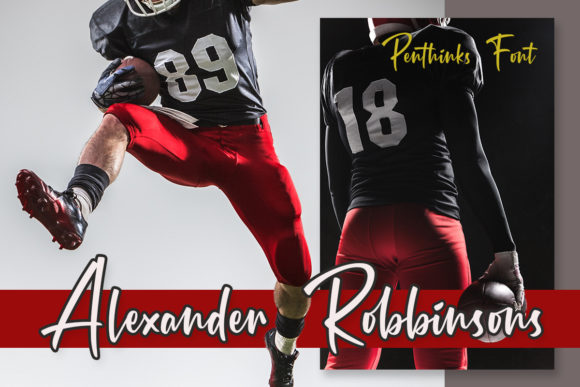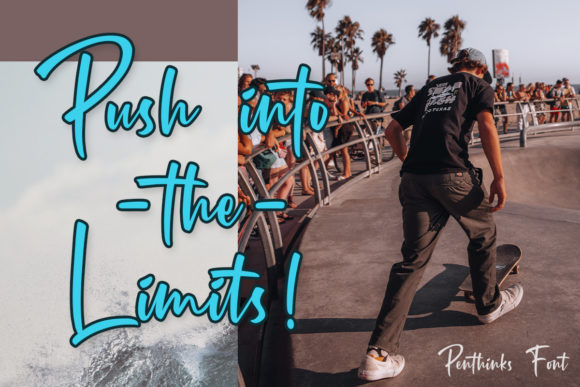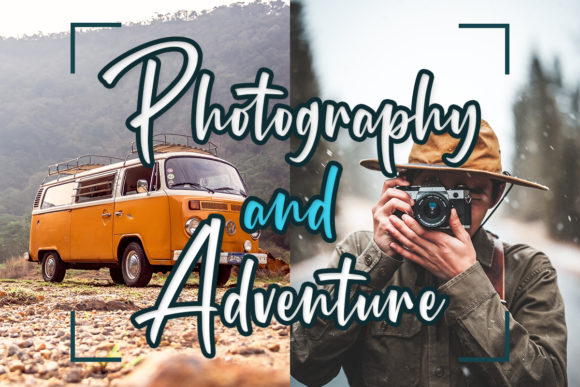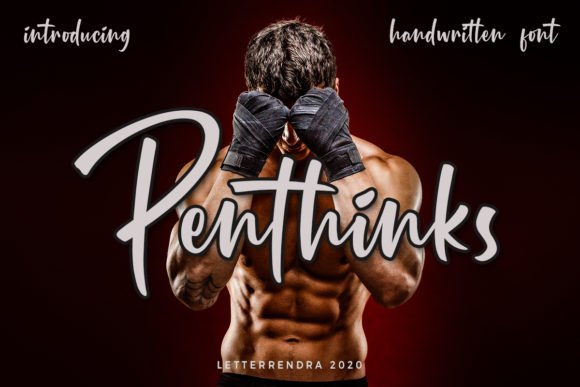
Introduction to Penthinks Font
Penthinks is a unique and interesting handwritten font.
A little bit quirky, this font is a great choice for a wide variety of contexts .